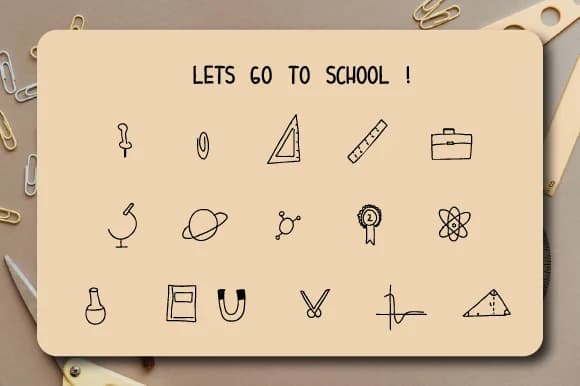
Let's Go to School by Ciriative is a retro dingbats font brimming with playful educational symbols and decorative icons that effortlessly capture classic school charm. The shaded, three-dimensional style brings genuine nostalgic energy that feels both approachable and polished, making it particularly strong for anyone building school-themed graphics. These aren't generic placeholder icons. The characters have real personality, visual weight, and authentic charm.
This font delivers real, practical value across a surprisingly wide range of educational and classroom projects. School supply labels and back-to-school merchandise layouts benefit dramatically from its cheerful personality, while classroom decoration designs grab attention with their dimensional depth. You'll find it equally strong for teacher appreciation cards, handbook covers, worksheet headers, and vintage-inspired educational posters where that retro vibe adds genuine visual interest without feeling forced. Bulletin board displays look substantially richer when built with these dingbats, and they work wonderfully for DIY craft projects and classroom signage where ready-made illustrations save you from hunting through separate graphic collections. The three-dimensional shading translates cleanly to both digital layouts and printed materials, holding up well at various sizes and maintaining character.
Let's Go to School Font is a versatile dingbats font that works for both headings and body text. Pair it with a contrasting sans-serif or serif font to add visual interest and a clear distinction between titles and body copy.